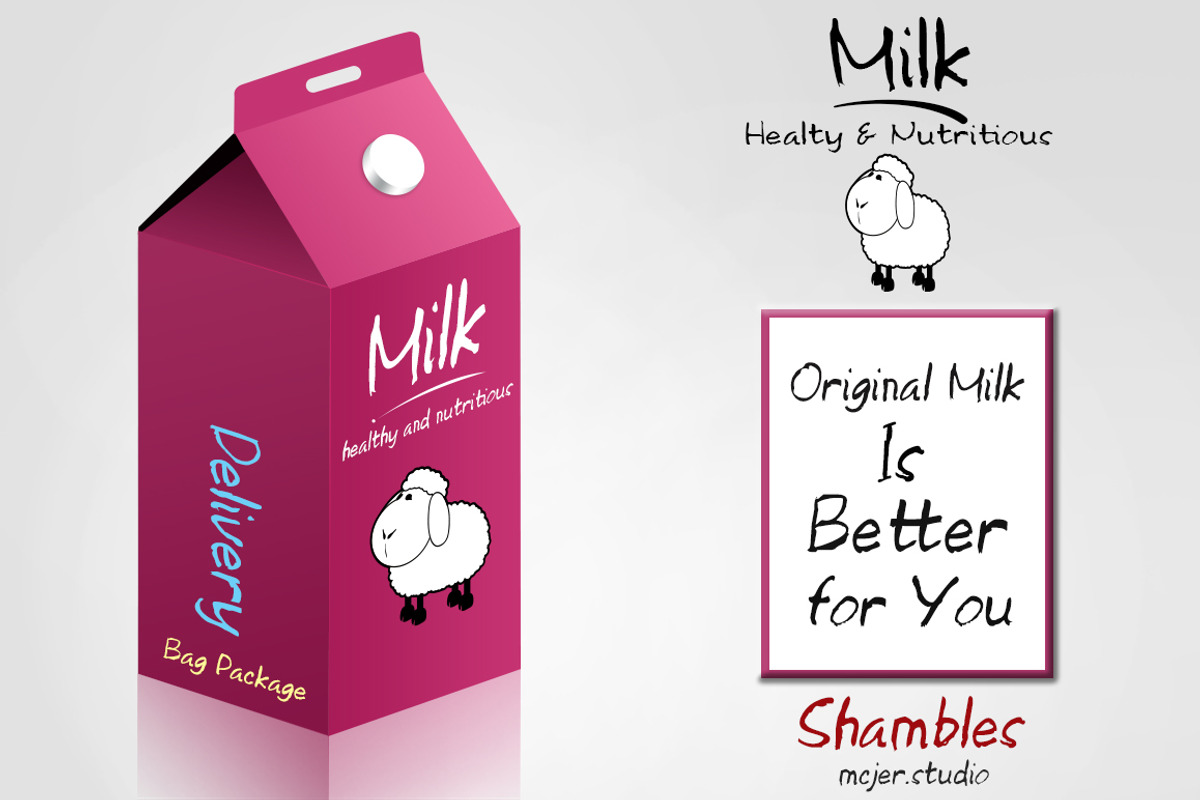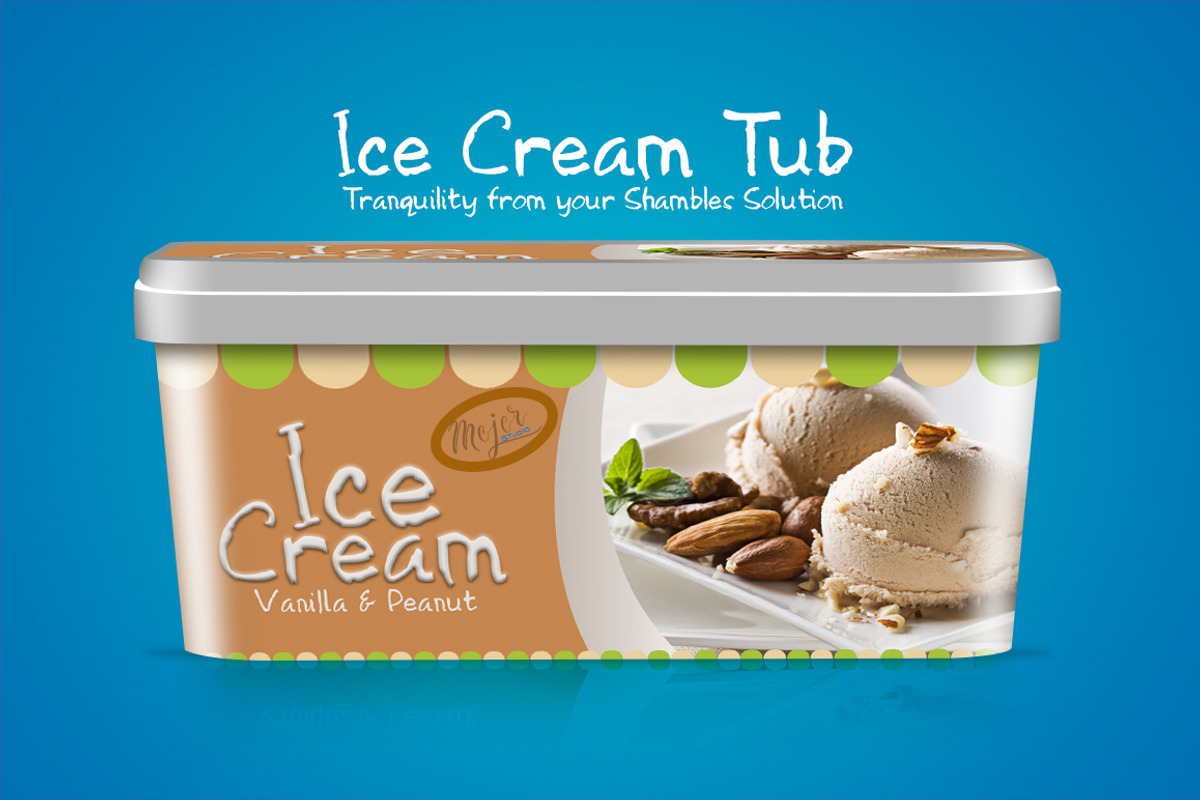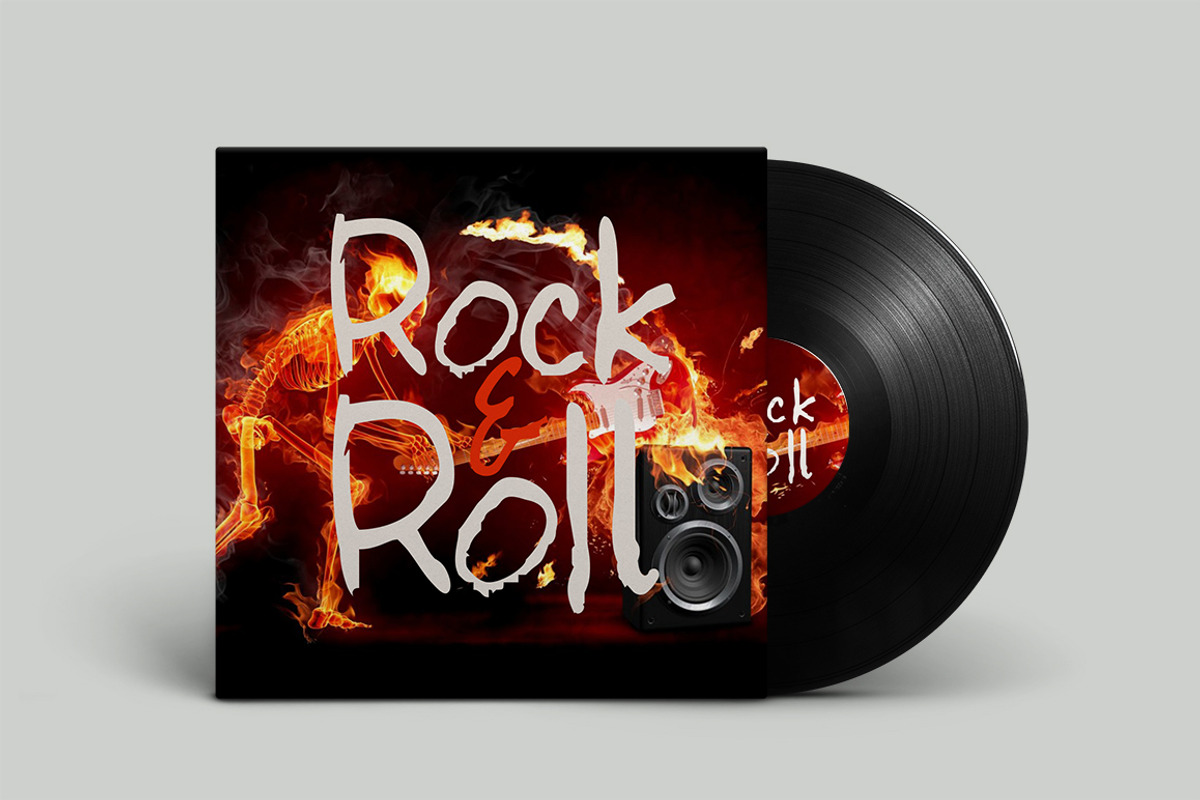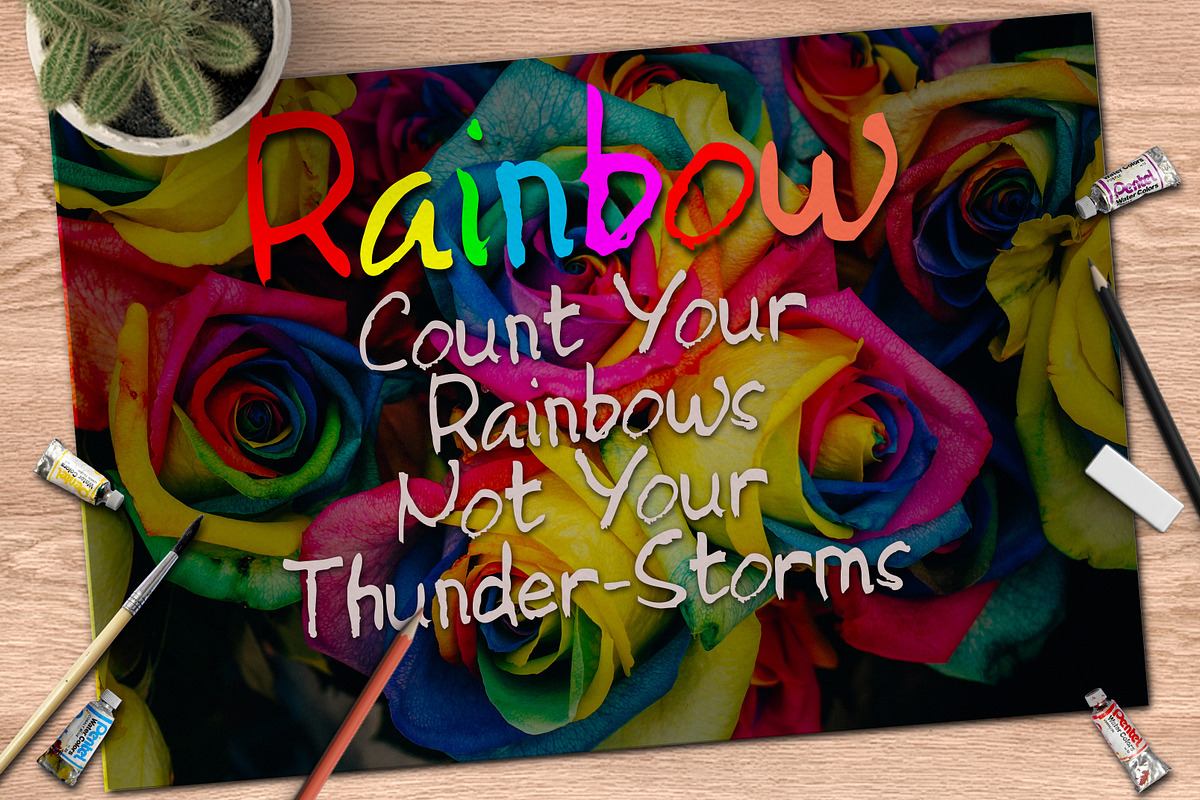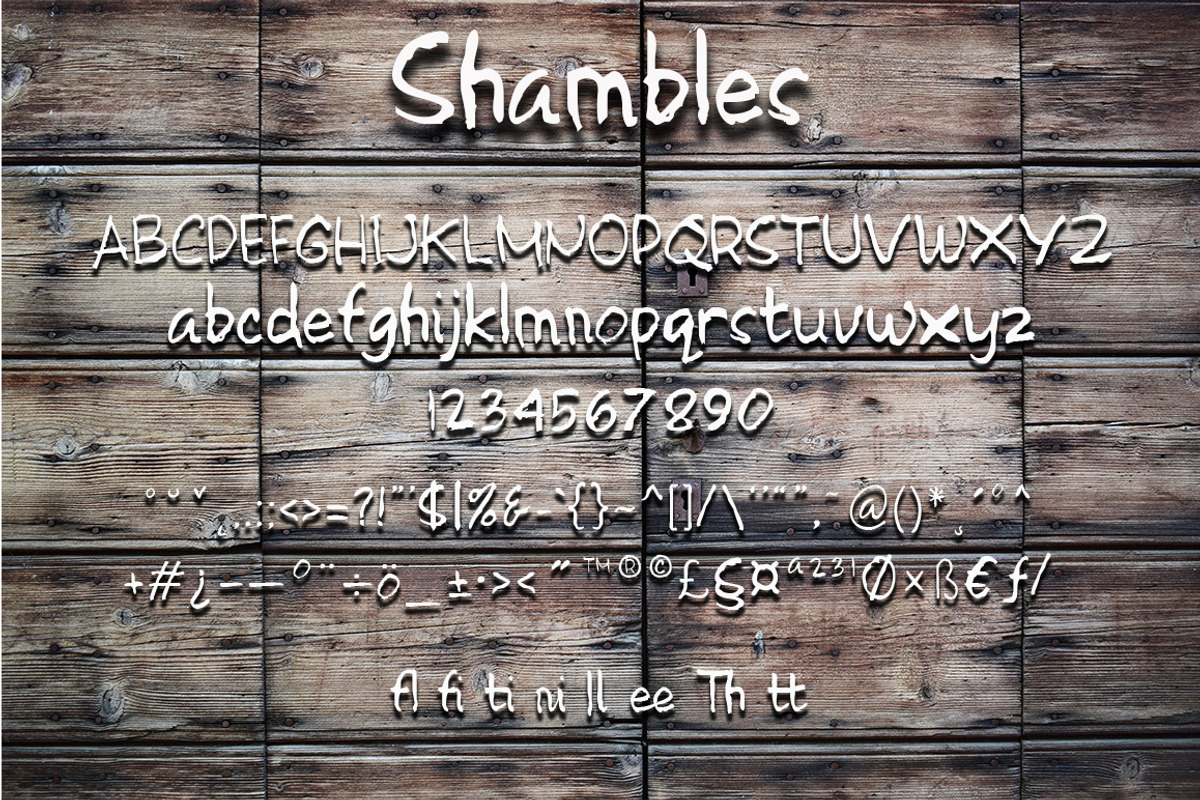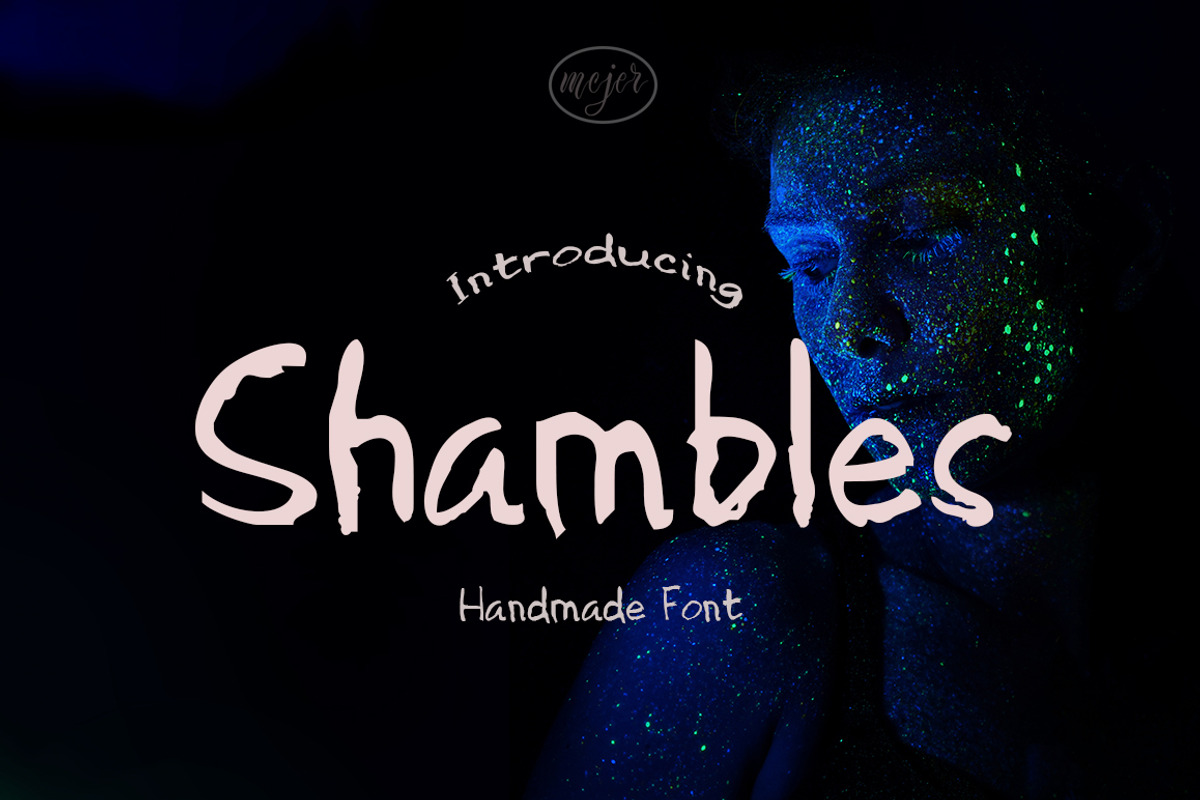
Shambles Handmade Font
Shambles Handmade Font by McJer.Studio is a font selected for branding, posters, packaging, typography.
- it's come with opentype, Ligature, number and punctuation.
Shambles Handmade Font by McJer.Studio fits naturally into Branding, posters, packaging, typography.